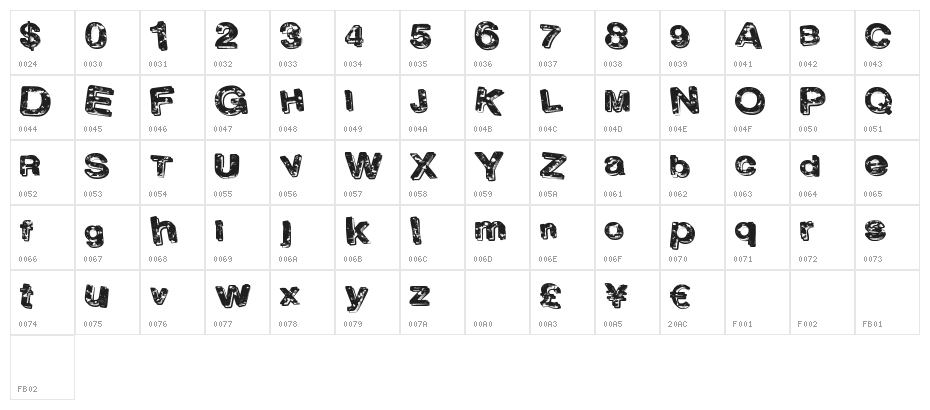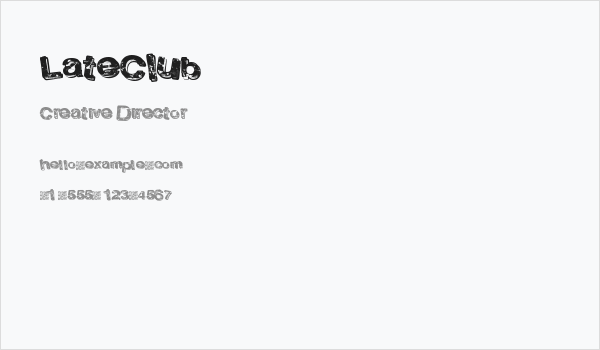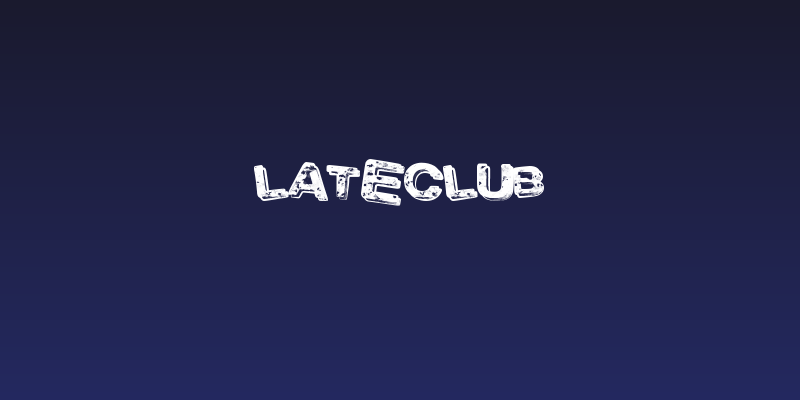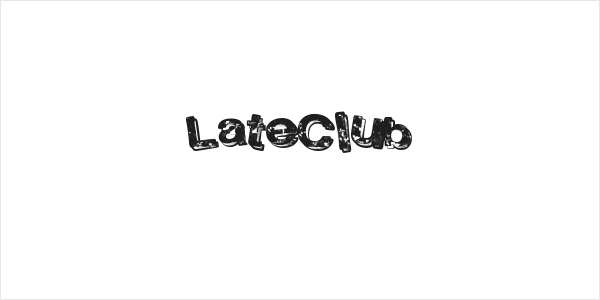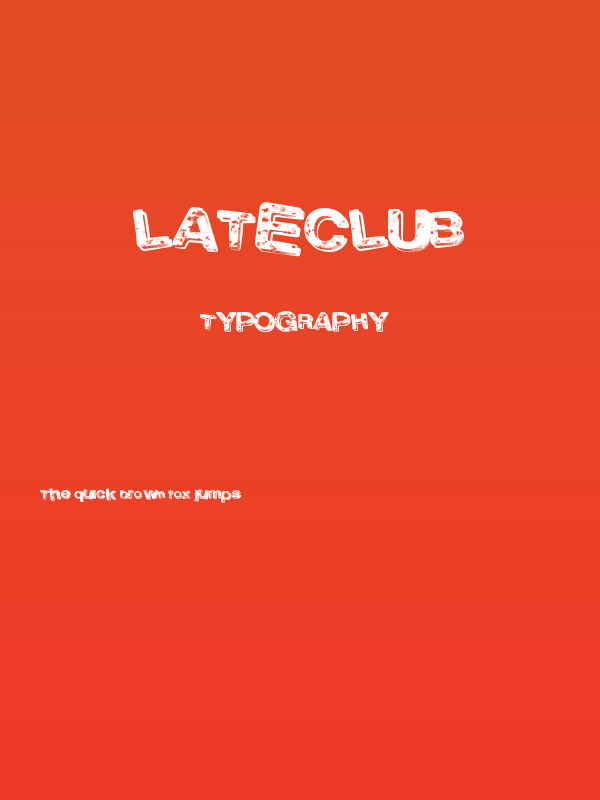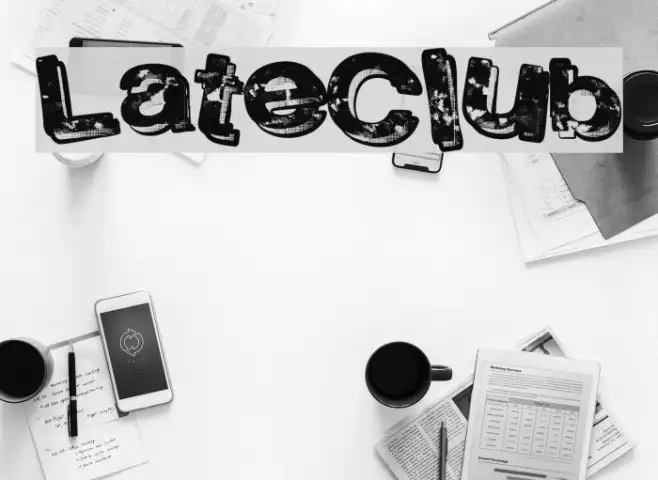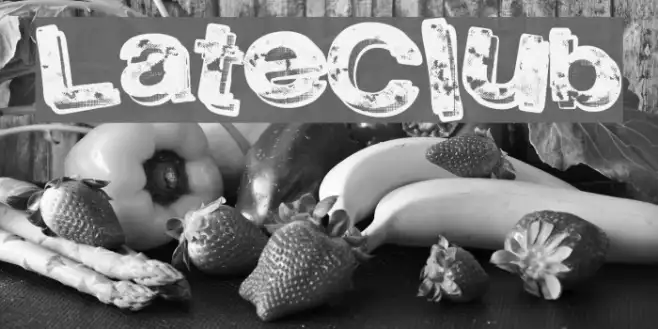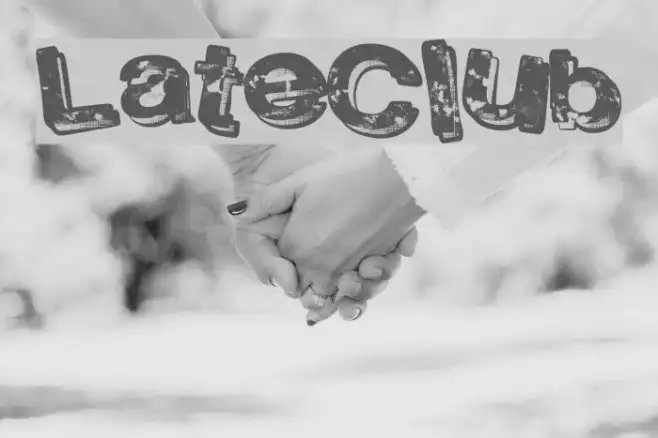
LateClub Font
LateClub Description
This font features a bold, distressed style with a textured appearance that gives it a rugged, vintage feel. The uppercase and lowercase letters are consistent in their distressed pattern, creating a cohesive look across the alphabet. The numbers and special characters also share this weathered texture, enhancing the overall aesthetic. The boldness of the font makes it stand out, while the distressed details add character and depth. This font is ideal for projects that require a touch of nostalgia or a gritty, urban vibe.
| Proposed Projects | Perfect for posters, album covers, branding for vintage-themed products, or any design needing a rugged, retro touch. |